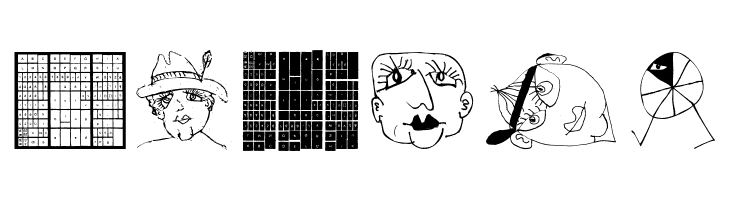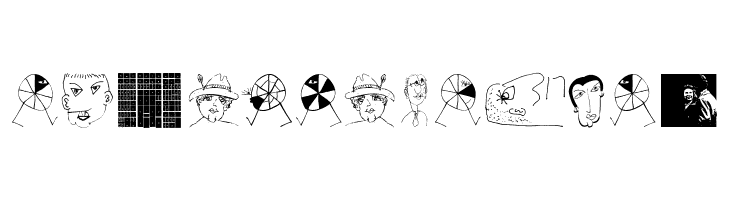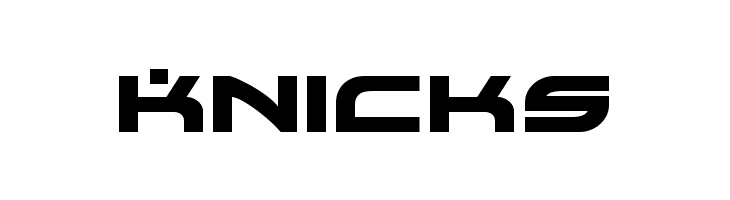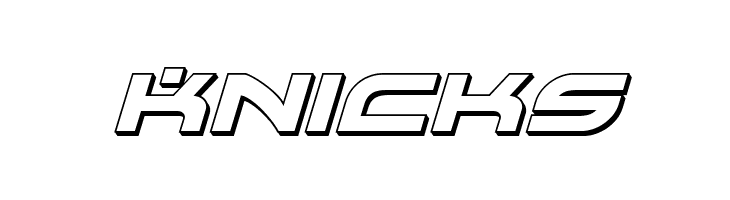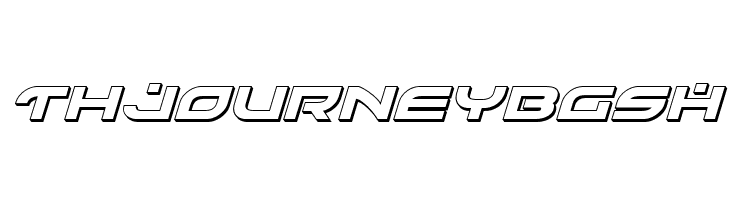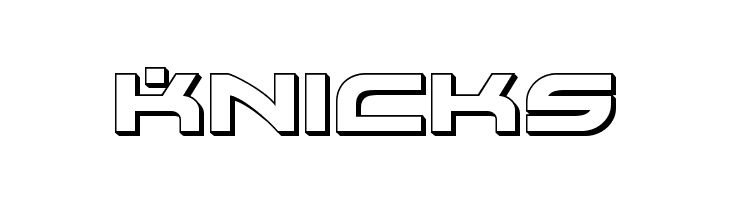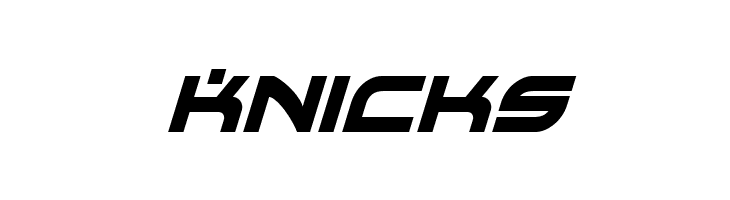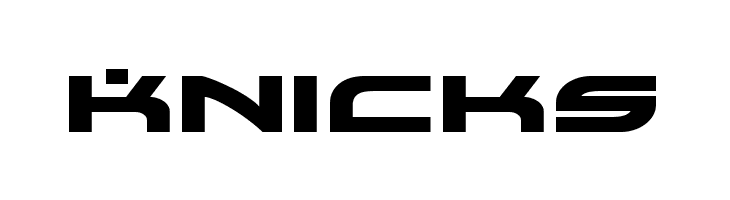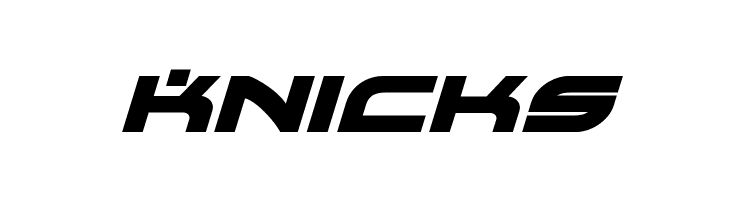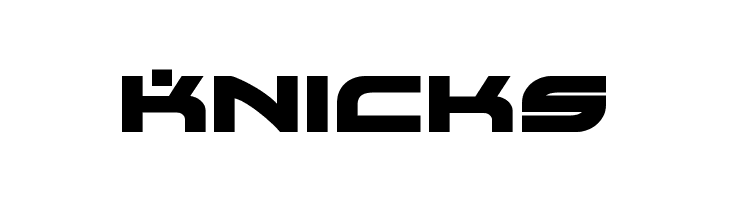
• BatsStuff
A quirky, hand-drawn display font with illustrated, cartoonish characters.
• Battal free
A bold, expressive script font with flowing, cursive letterforms.
• Battlefield
A bold, futuristic font with geometric shapes and sharp angles.
• Battlefield 3D
A bold, futuristic font with a 3D outlined design.
• Battlefield 3D Italic
A bold, 3D italic font with a futuristic and dynamic style.
• Battlefield Bold
A bold, futuristic font with geometric, angular characters.
• Battlefield Bold Italic
• Battlefield Condensed
A bold, geometric, and condensed font with a futuristic style.
• Battlefield Condensed Italic
A bold, condensed italic font with a modern, dynamic style.
• Battlefield Expanded
A futuristic, bold font with geometric and angular design.